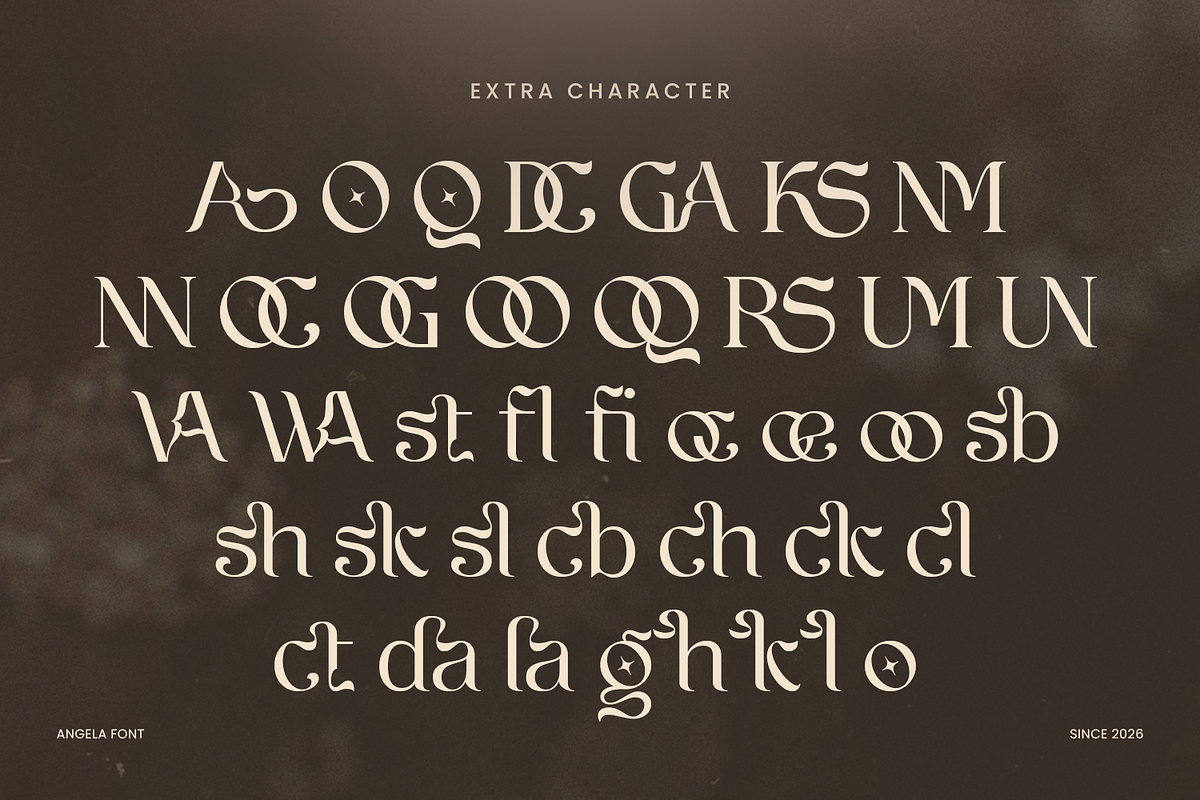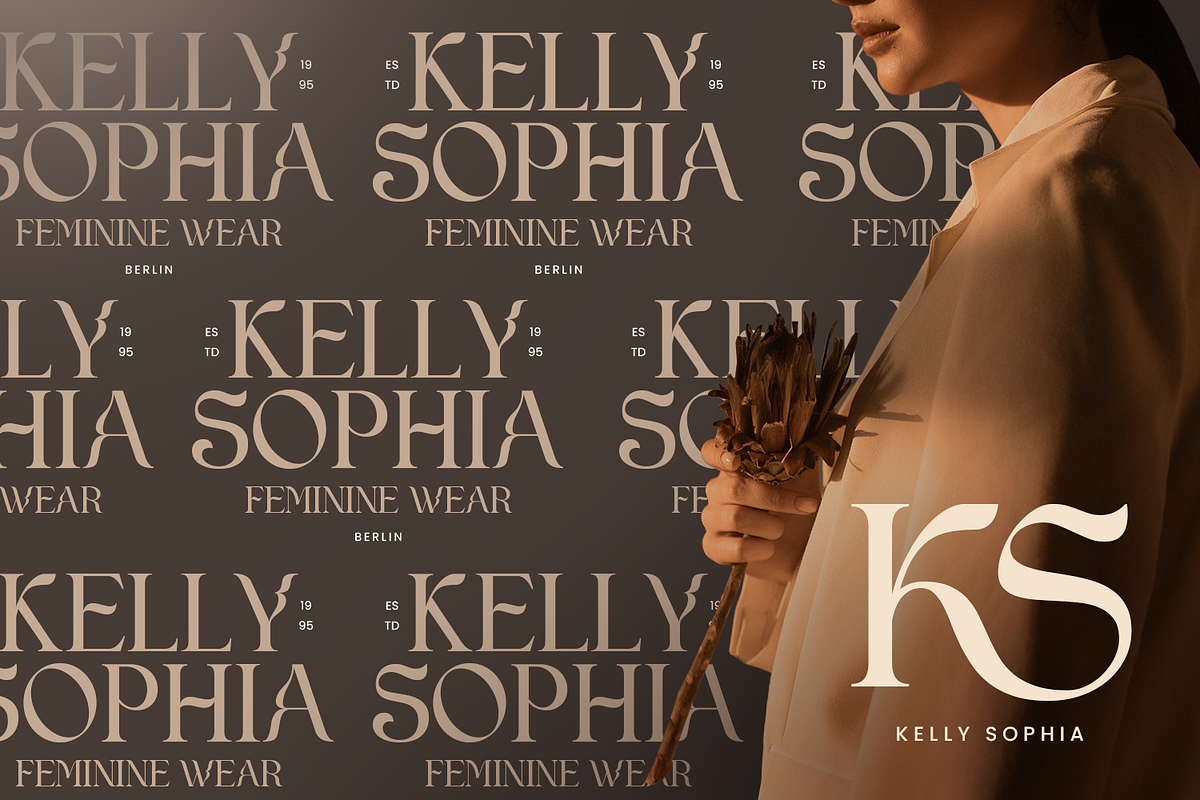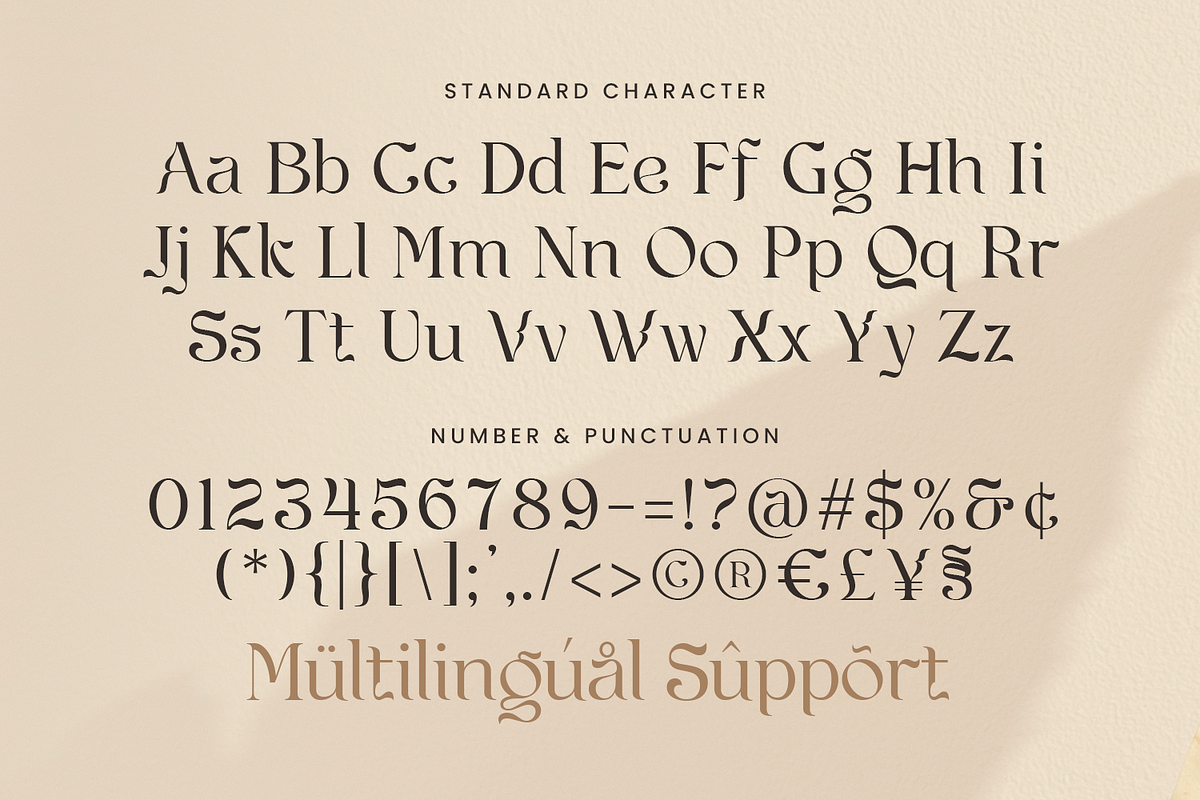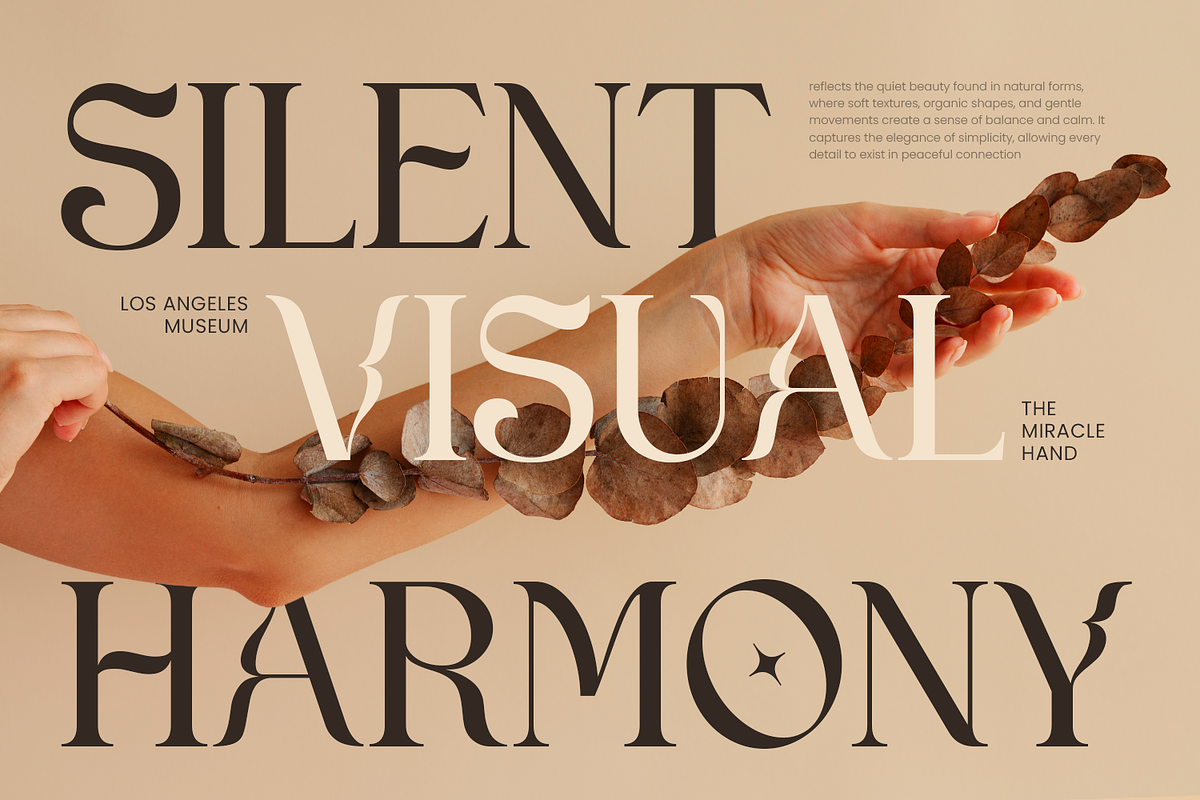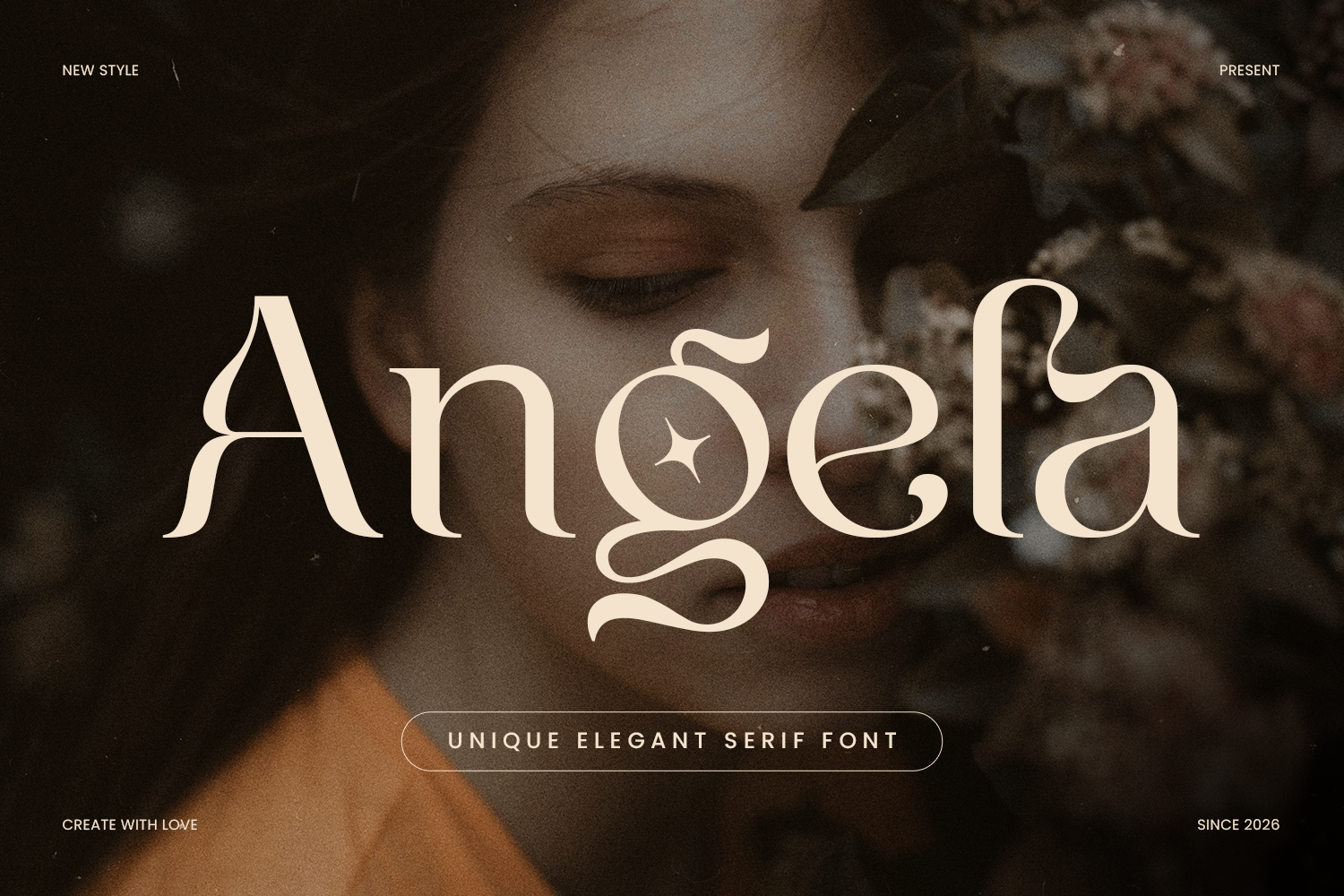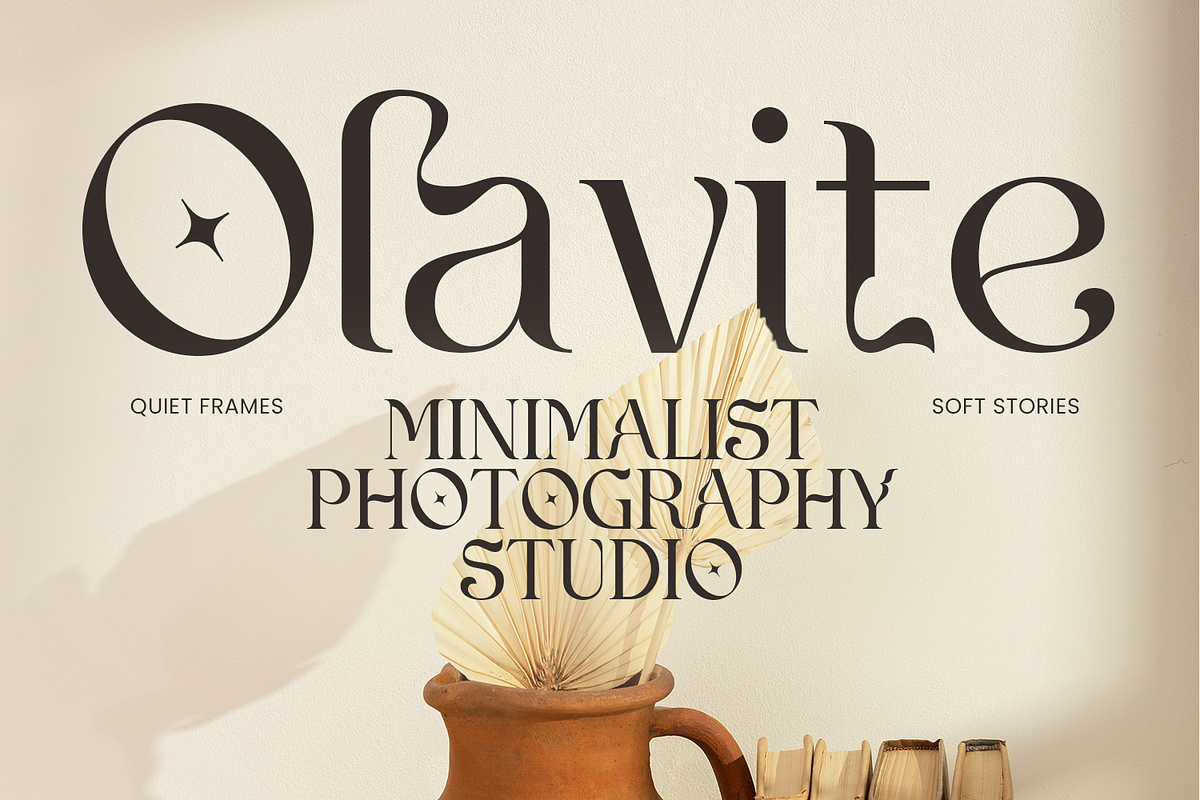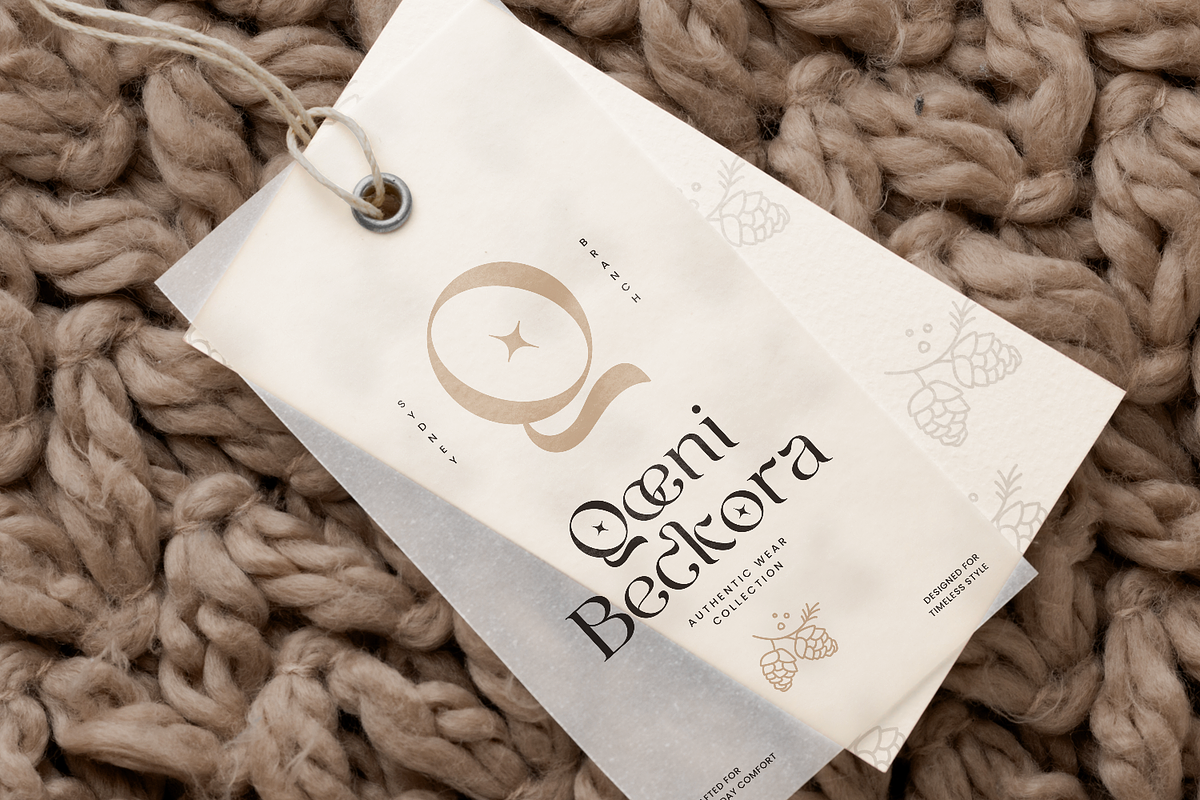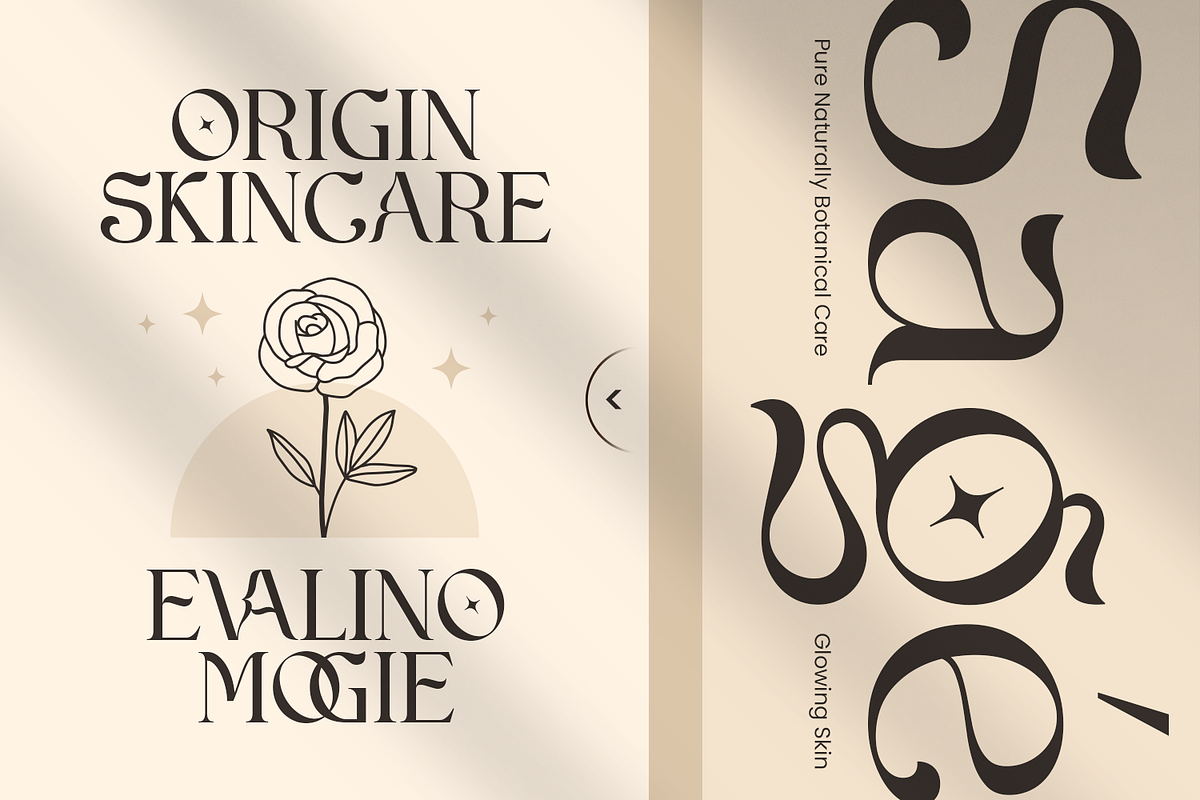
Angela - Luxury Font
Angela is a unique, stylish, and elegant luxury font designed to bring a refined and fashionable touch to modern typography. Inspired by contemporary design trends and graceful letterforms, this font features beautiful curves and distinctive characters that create a striking and sophisticated visual appearance.
The font displays a harmonious balance between smooth strokes and stylish ligatures, delivering a clean yet expressive look. Each letter carries a charming personality, giving designs a memorable and artistic impression while maintaining clarity and readability.
Angela is perfectly suited for a wide range of creative projects including magazine layouts, trendy packaging label designs, unique logos and branding, poster designs, and fashion-related visuals. Its fashionable style also works beautifully for seasonal themes such as summer, spring, autumn, Thanksgiving, and Christmas.
This font is also ideal for creative crafts and decorative projects such as wedding invitations, birthday cards, Easter designs, Cricut projects, embroidery, lettering art, and handmade crafts. The elegant and stylish character of the font helps bring warmth, beauty, and charm to every design concept.
Elevate design projects with the elegant charm of Angela and create stunning, stylish typography that leaves a lasting impression.
Fonts include multilingual support for; Afrikans, Danish, Dutch, English, Estonian, Filipino, Finnish, French, Friulian, Galician, German, Gusii, Indonesian, Irish, Italian, Luxembourgish, Norwegian Bokmål, Norwegian Nynorsk, Nyankole, Oromo, Portuguese, Romansh, Rombo, Spanish, Swedish, Swiss-German, Uzbek (Latin) Scottish, Swiss, etc.